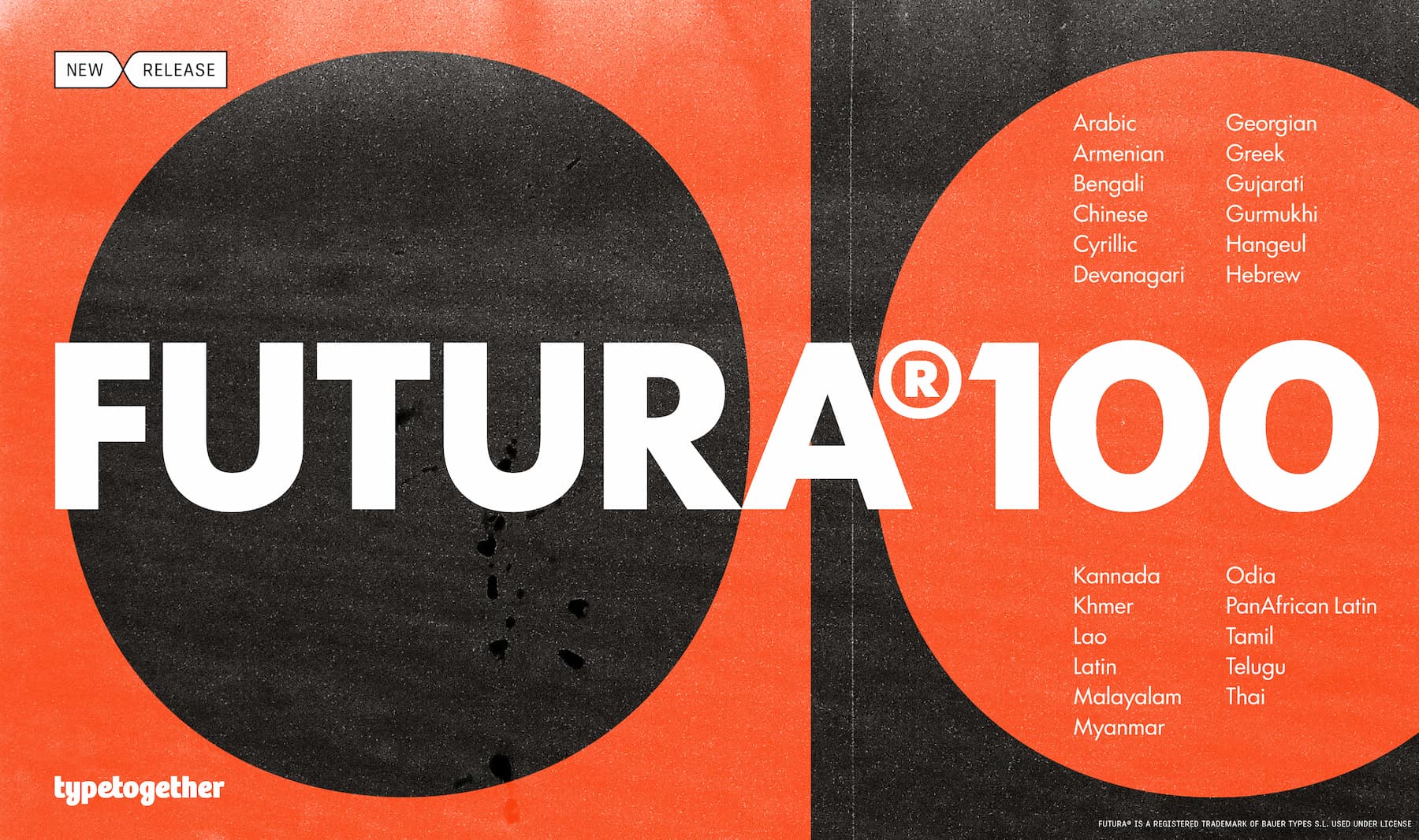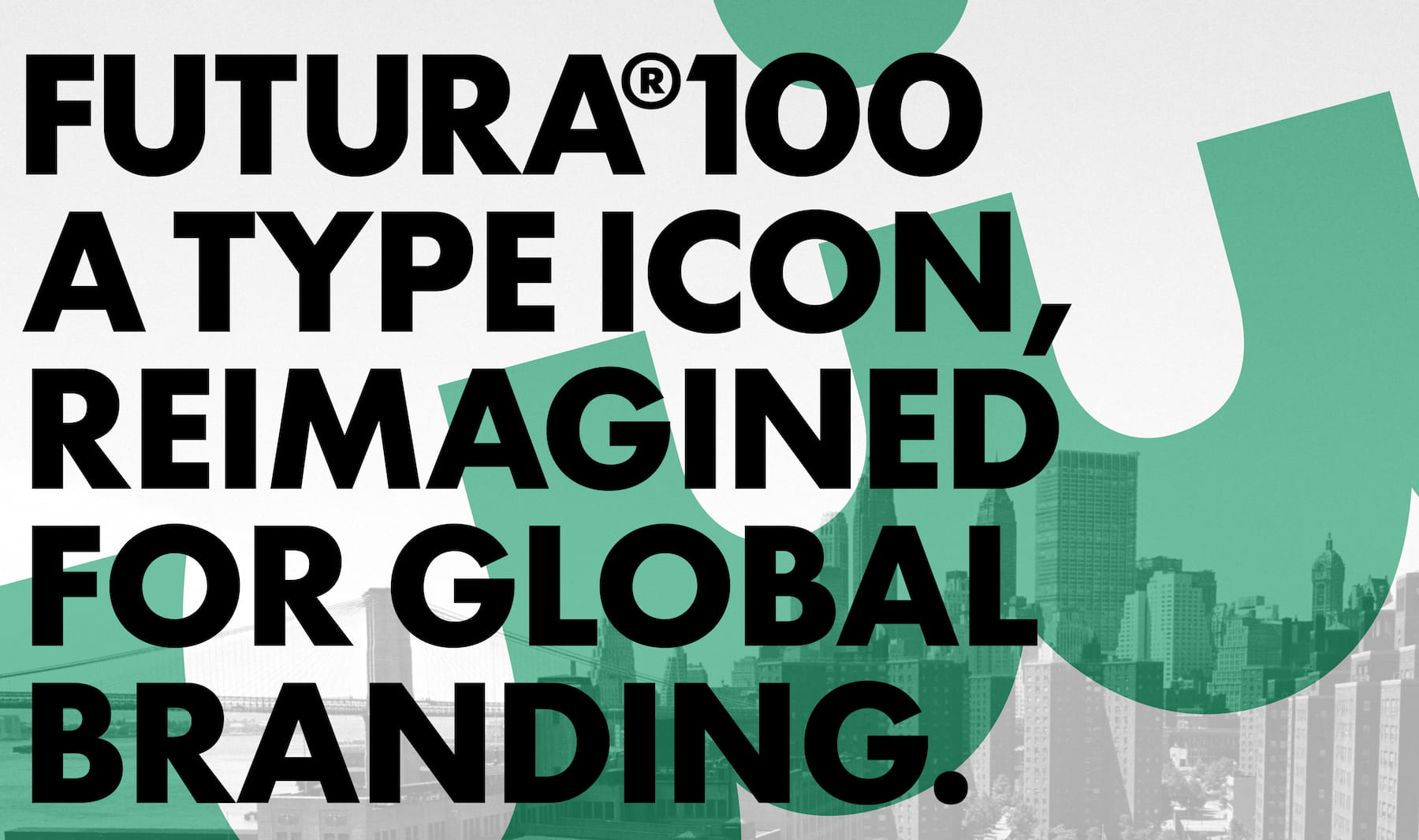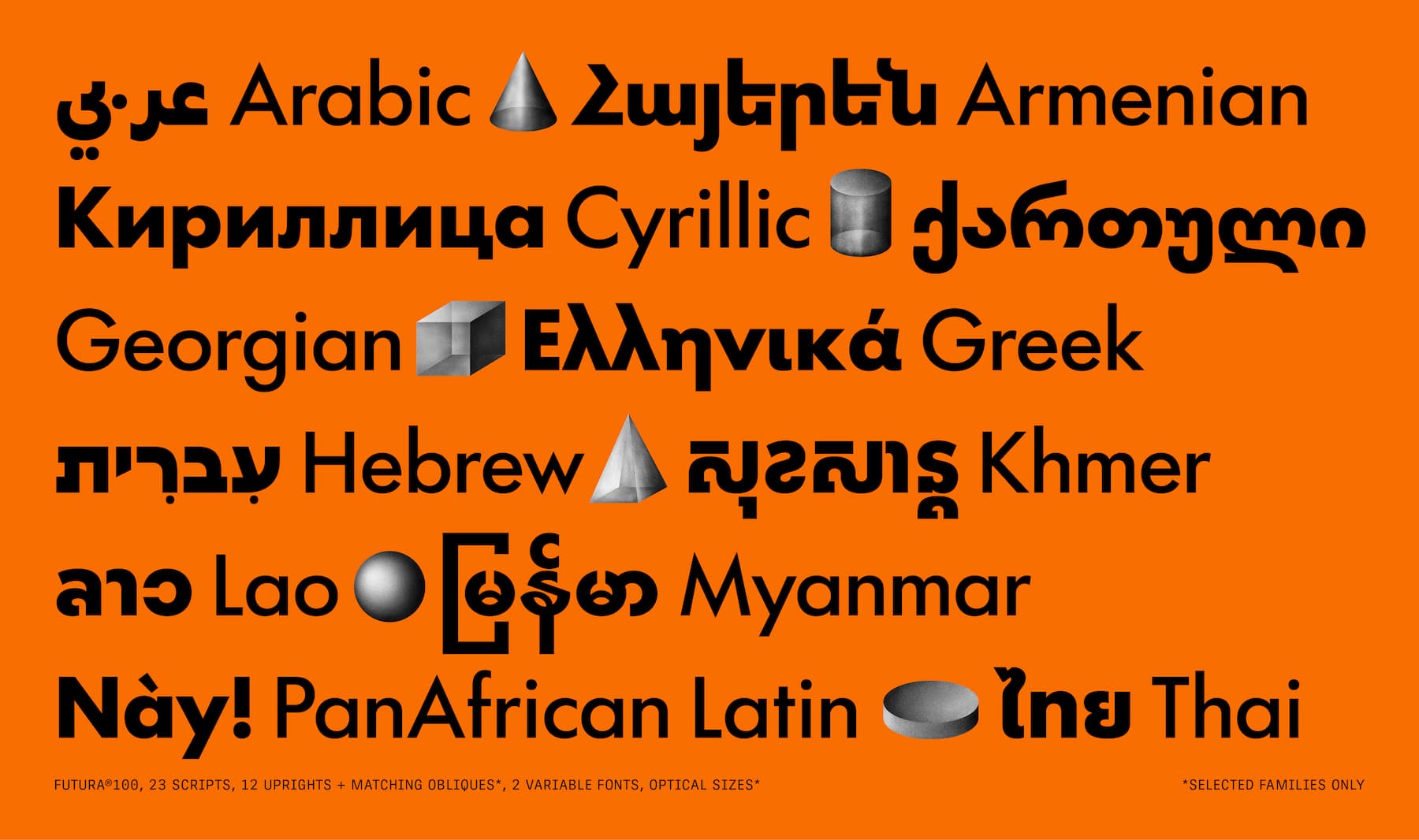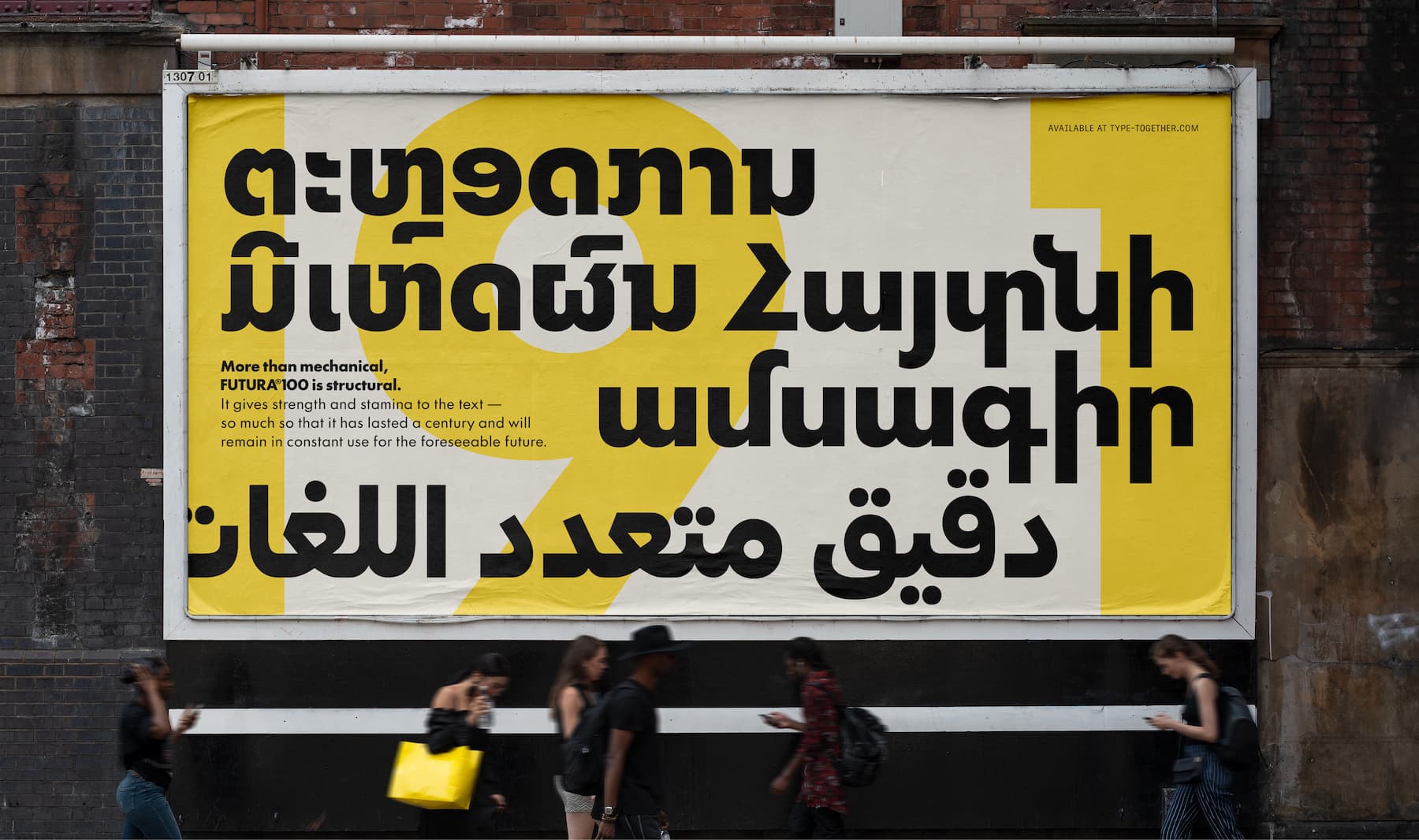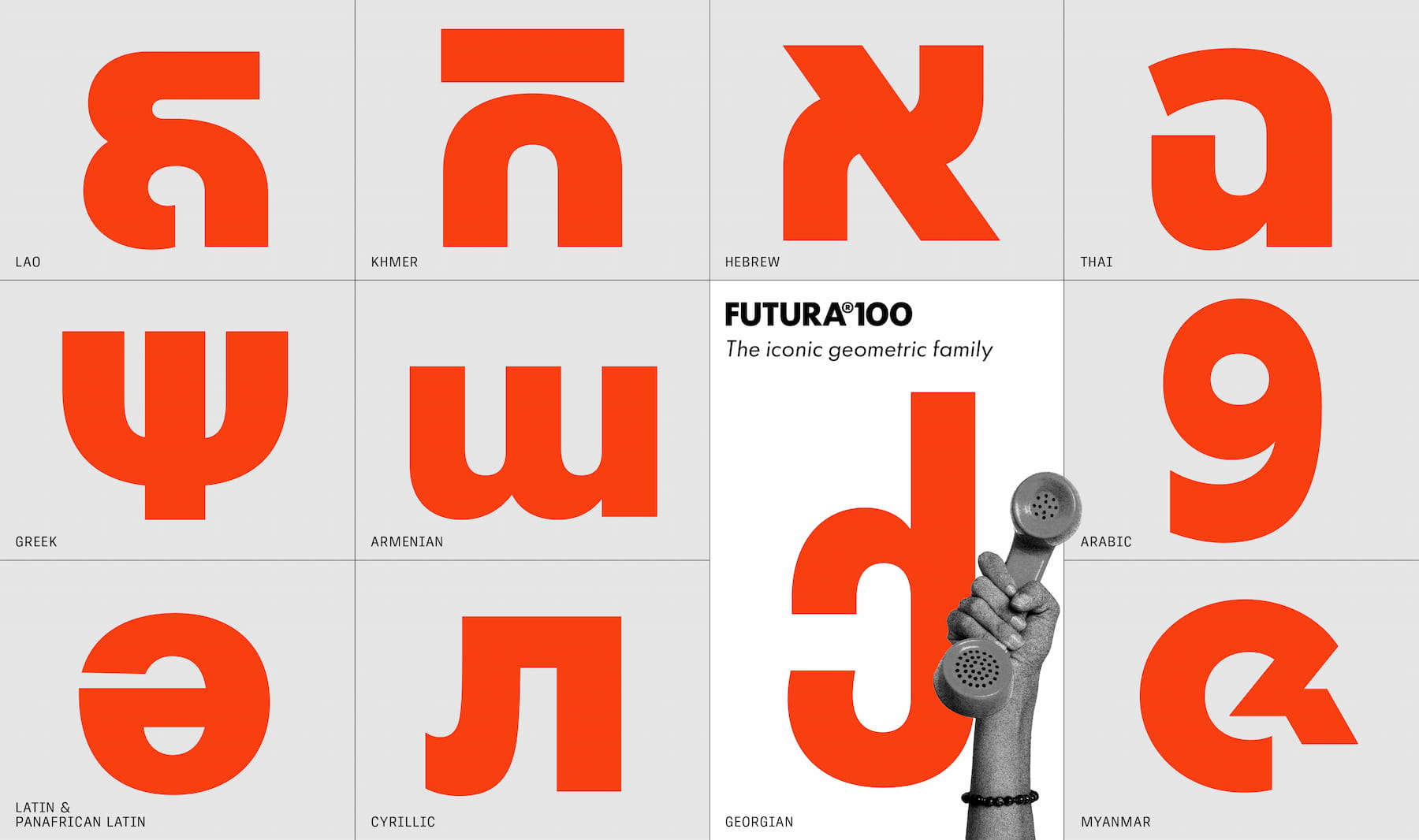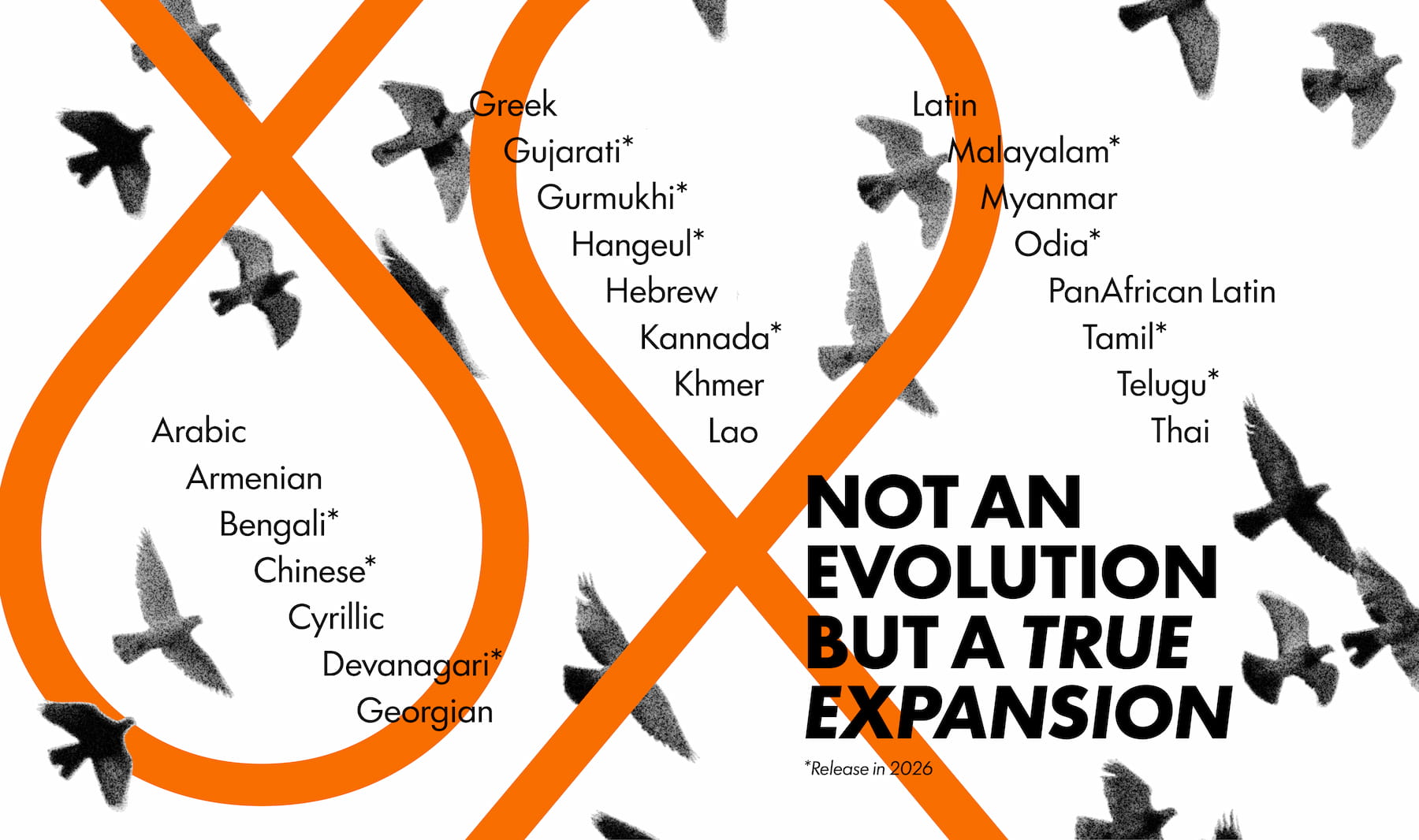
New release: Futura®100
We have a huge announcement today that has been years in the making. In partnership with Bauer Types, TypeTogether has brought together the widest global talents to create Futura®100, the epitome of minimalist geometric typefaces for the world. We are proud to announce the release of the first half of the full multiscript family!
Futura®100 is currently comprised of 12 scripts, each with six upright styles and matching obliques (as applicable), variable fonts, and an optical size option that increases spacing and adapts vertical proportions to improve readability in text sizes. In 2026 we will release 11 additional scripts which will include support for major Indic scripts as well as Simplified Chinese and Hangeul, covering more than 90% of the world’s population in total. With such extensive coverage, Futura®100 is a great fit for agencies and brands with global reach, multinational commitments, or for those who have used the Latin version in the past but would benefit from using it in their own script.
Our team has been diligently working to bring this family to as much of the global design community as possible while honouring Renner’s intention. So after two years of first-hand archival research, design, and testing, Futura®100 is the initial extension of his original idea worldwide, rather than a remake limited by specific region or purpose.